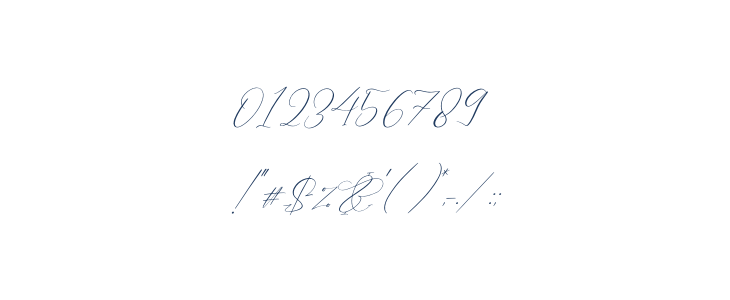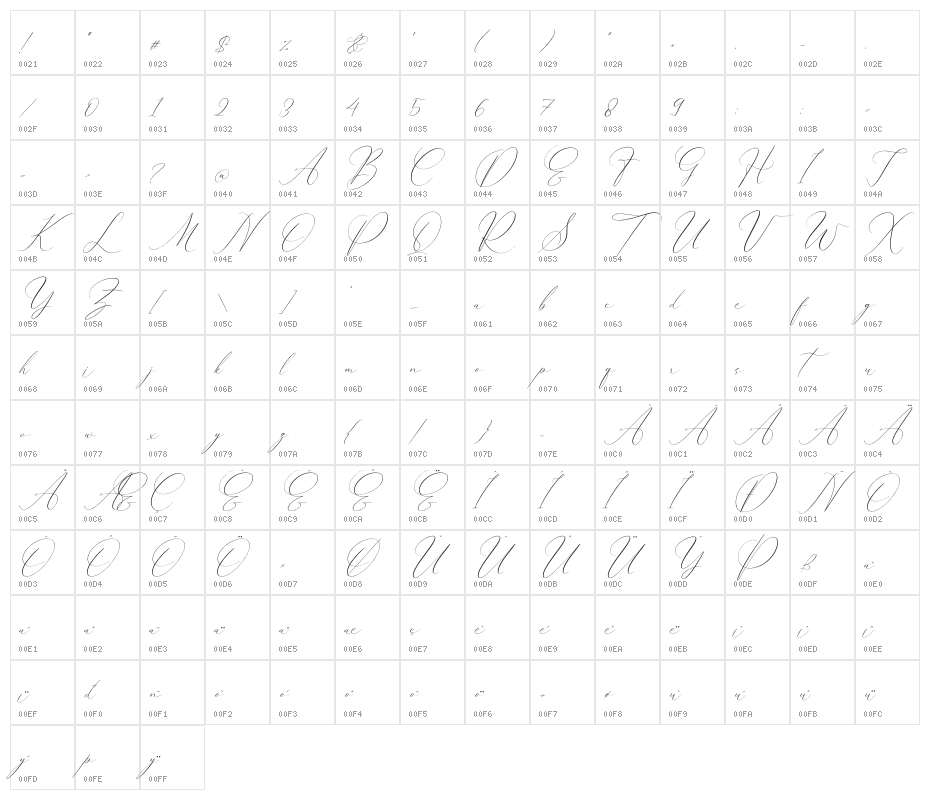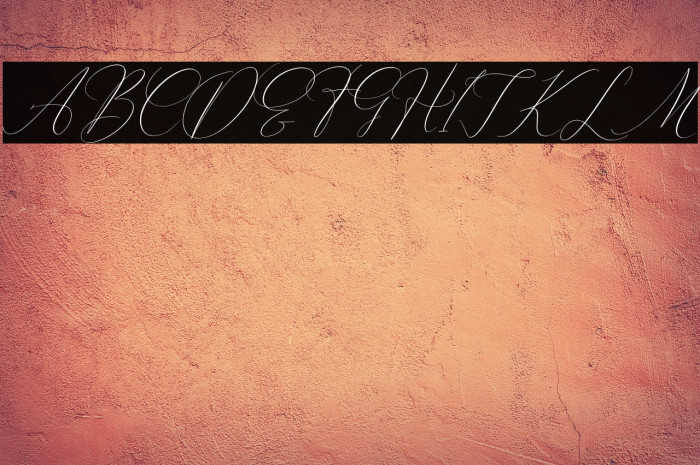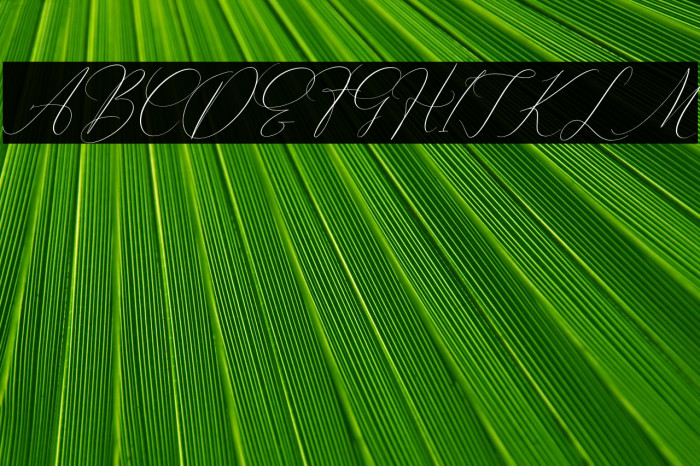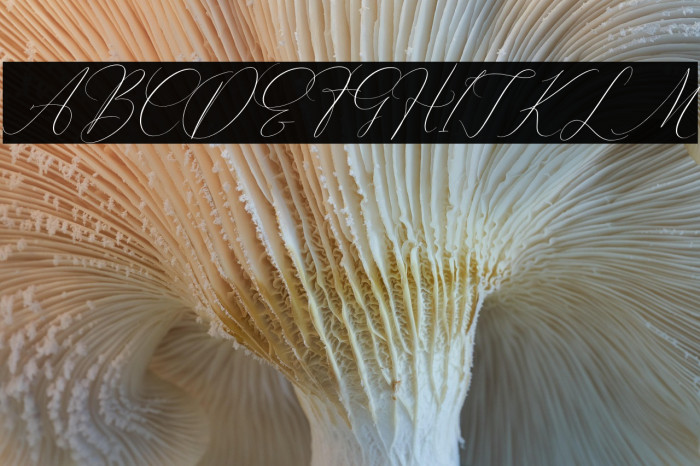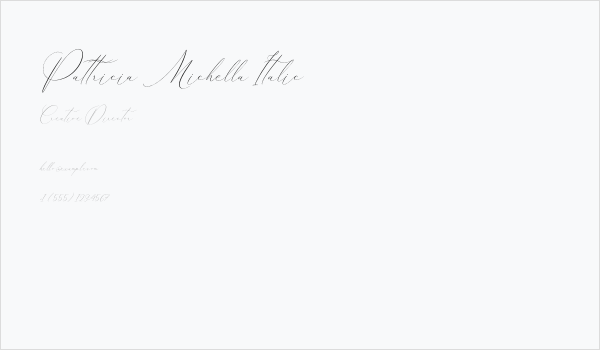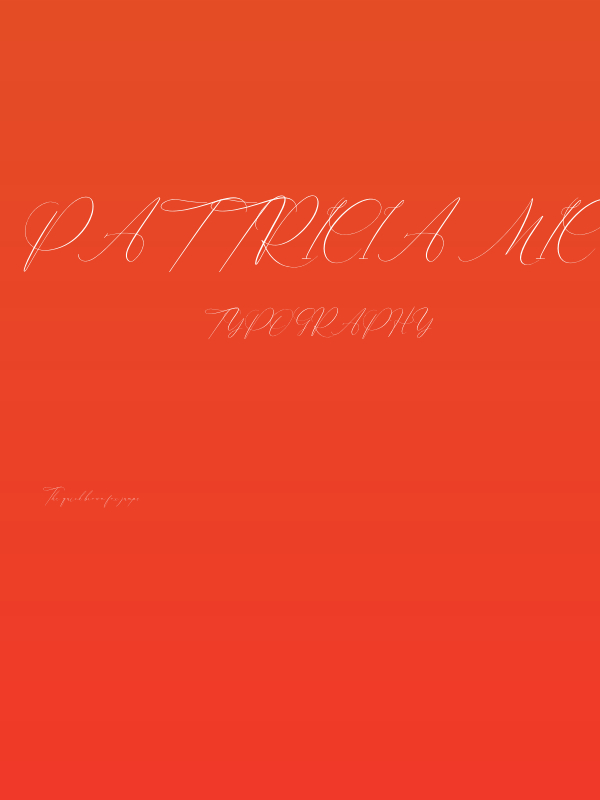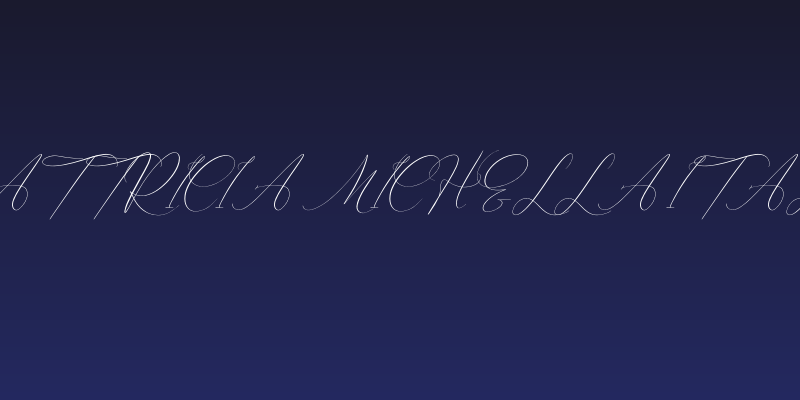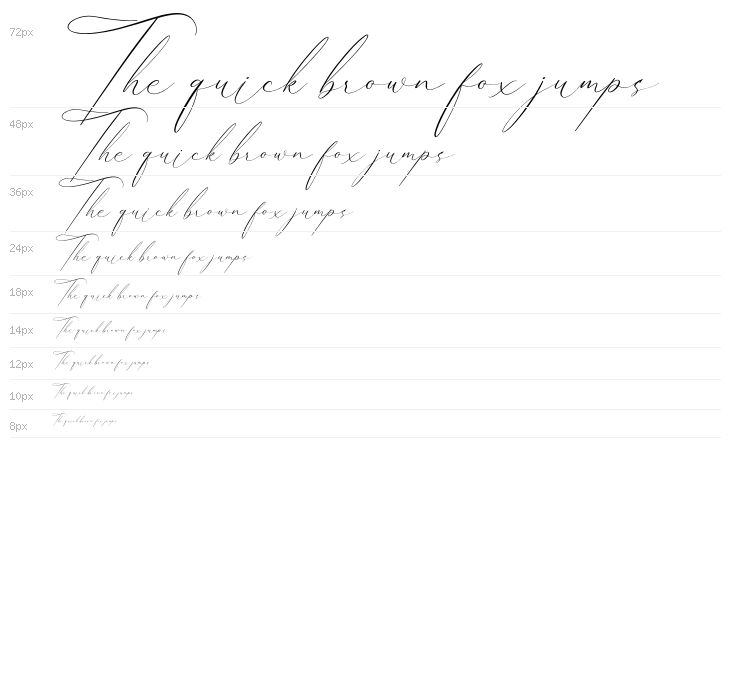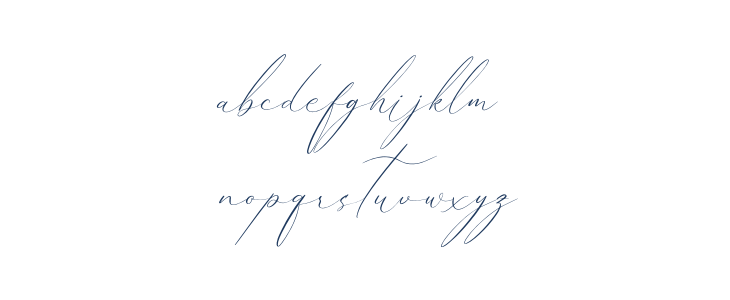
Pattricia Michella Italic Font
Pattricia Michella Italic Description
This elegant script font features a flowing, cursive style with delicate, elongated strokes. The characters are gracefully connected, creating a sense of fluidity and movement. The uppercase letters are ornate, with intricate loops and swirls, while the lowercase letters maintain a consistent, smooth flow. The numerals are stylishly integrated into the overall design, complementing the alphabetic characters. Special characters are thoughtfully crafted, maintaining the font's sophisticated aesthetic. This font exudes a sense of refinement and elegance, making it suitable for formal and decorative applications.
| Overall Style | Elegant, Decorative |
| Proposed Projects | Ideal for wedding invitations, elegant branding, high-end product packaging, and sophisticated event materials. |